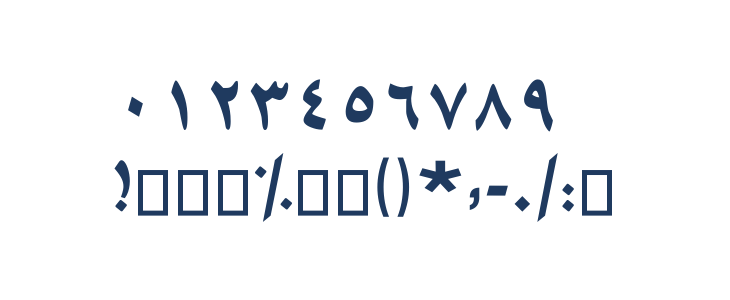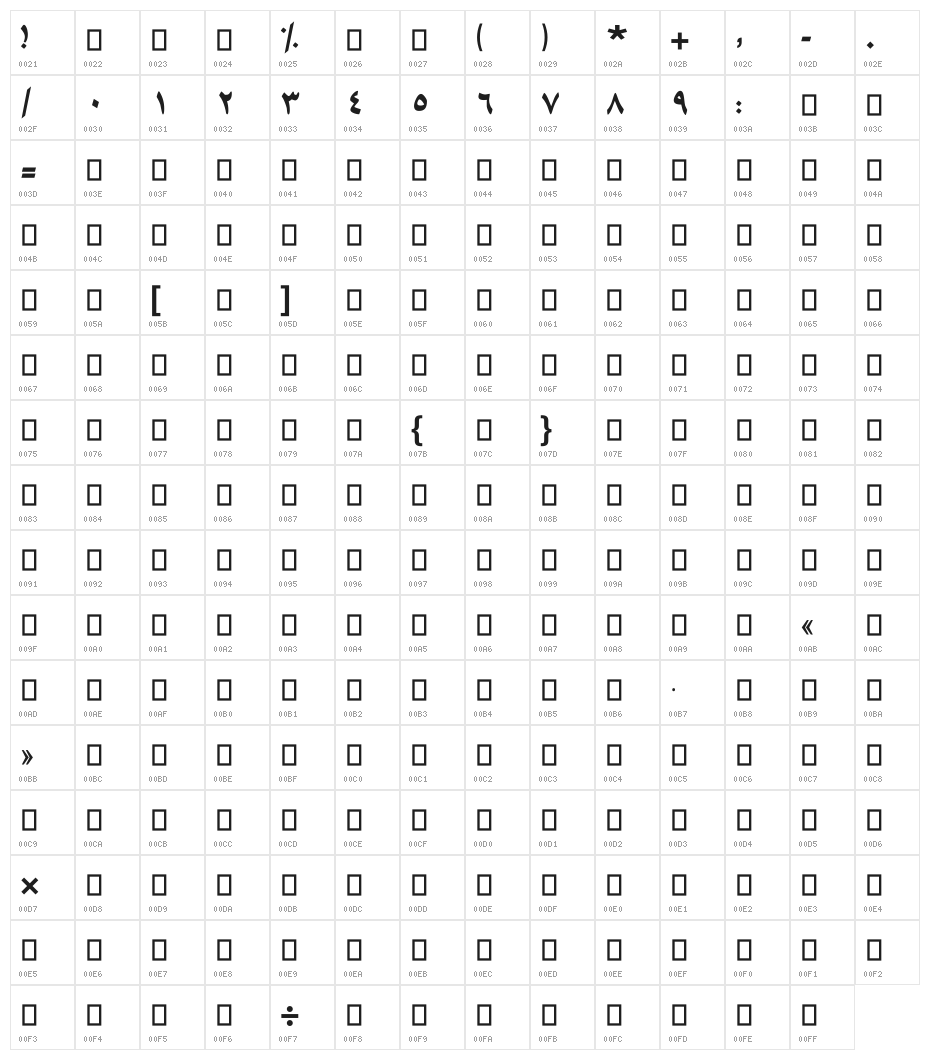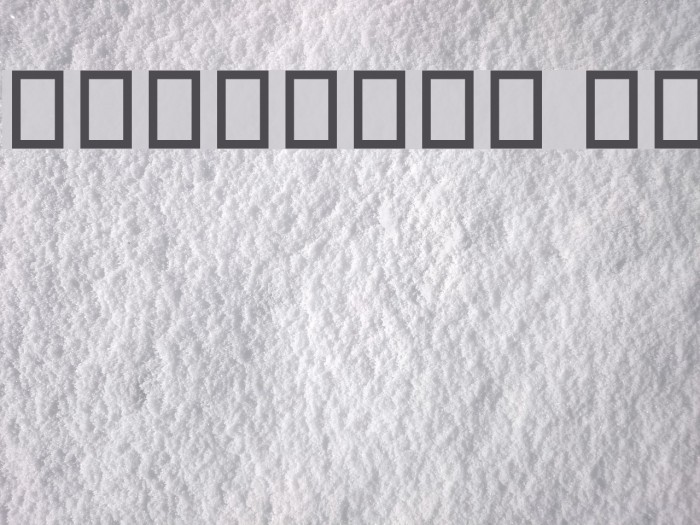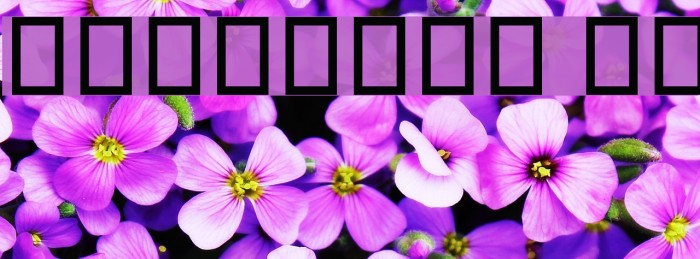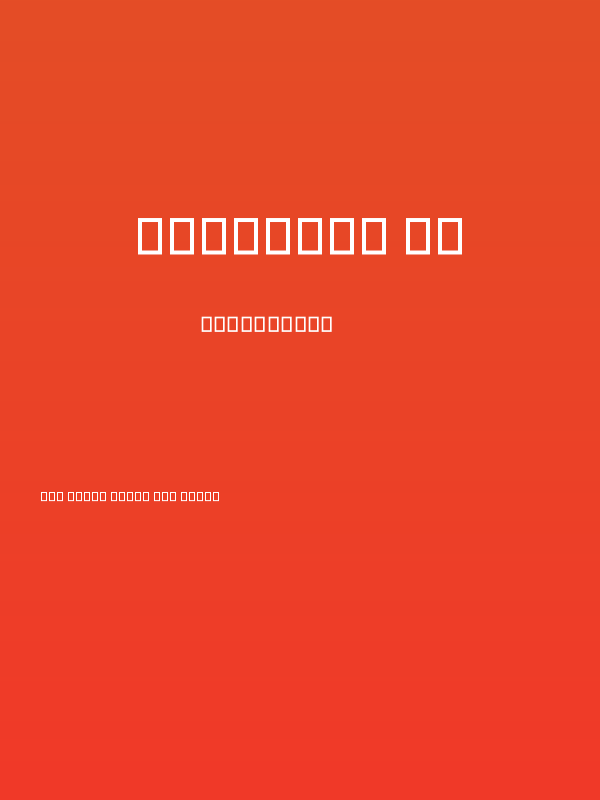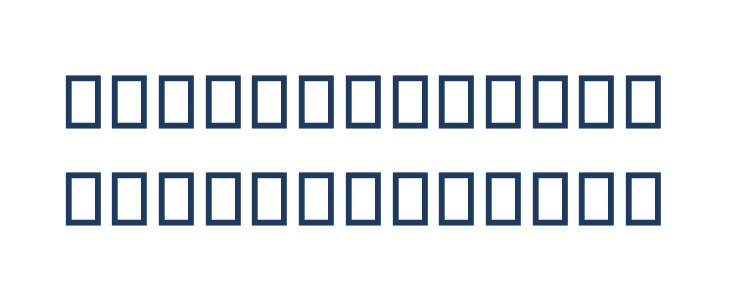
Hamaasah II Font
Hamaasah II Description
This font is a unique blend of traditional and modern elements, characterized by its flowing, cursive style that mimics handwritten script. The letters are elegantly connected, creating a seamless and fluid appearance. The strokes are moderately thick, providing a balanced contrast that enhances readability while maintaining an artistic flair. The numerals and special characters are designed to complement the alphabet, featuring similar curves and angles that ensure consistency throughout the typeface. This font exudes a sense of sophistication and creativity, making it ideal for projects that require a personal touch.